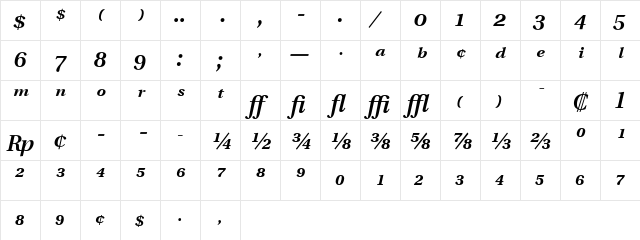
UtopiaExp Bold Italic
Design Context for UtopiaExp Typeface
UtopiaExp is a composed and adaptable typeface that performs quietly and consistently across a wide range of design contexts. The dynamic lean of this cut emphasises speed and emphasis in any layout. The heavy weight commands attention and anchors typographic hierarchies.
Pro Tip: Use UtopiaExp for emphasis, pull quotes, and subheadings where its slanted energy can add rhythm to the layout.